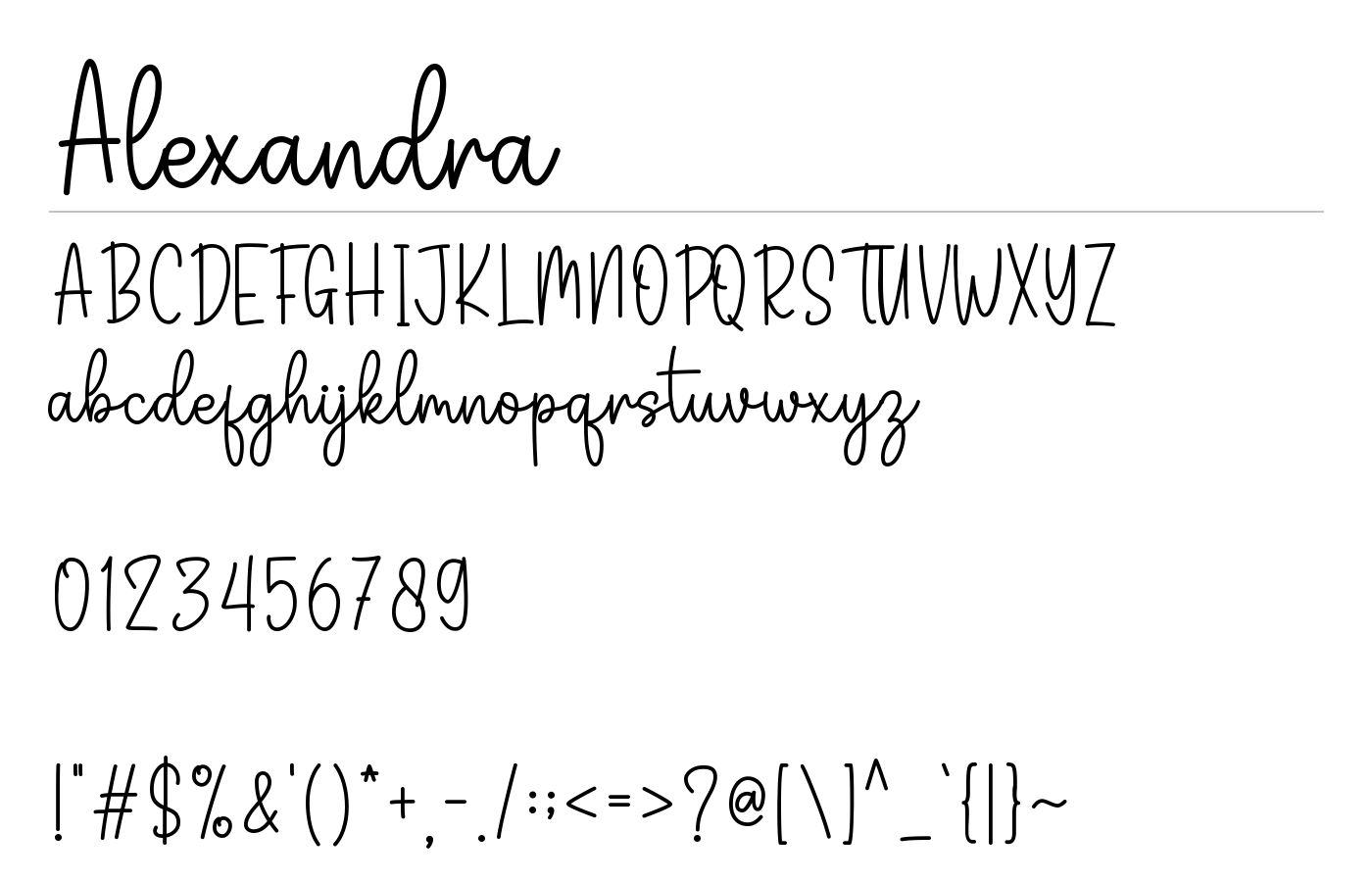
Alexandra is a light, playful handwritten script font with tall, narrow letterforms and a casual, friendly style. Its smooth, flowing strokes and slightly irregular shapes give it a personal, approachable feel, making it perfect for informal branding, invitations, and creative projects that seek a warm, human touch. This font works well where a charming, handwritten look is desired without sacrificing clarity or elegance.
Alexandra Font
About Alexandra Font
| Font family | Alexandra Font |
| Designer | Risma Ramawi |